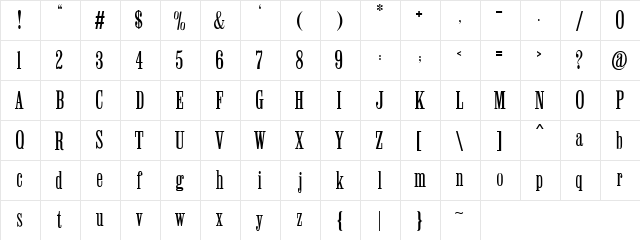
Winchester Regular
Design Context for Winchester Regular Typeface
Winchester Regular takes a measured approach to typography — its balanced proportions and neutral character make it a reliable workhorse for both digital and print work.
Pro Tip: Use Winchester Regular in both headline and body roles to test its range before committing to a single application.